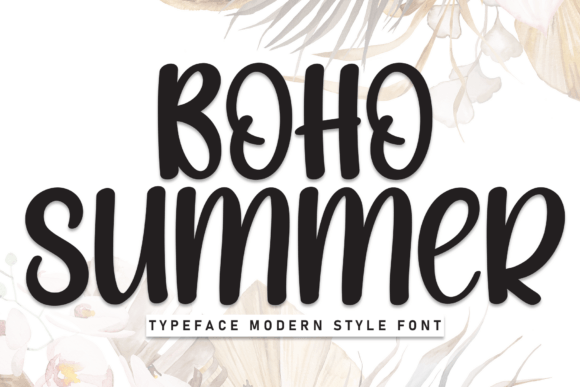
Embracing the Carefree Spirit: A Deep Dive into Boho Summer Font
Ah, the elusive perfect font. You know, that one that makes your design project go from meh to mesmerizing. I recall working on a summer-themed invitation for a friend’s beach wedding, determined to capture the laid-back, artistic vibe of the event. The challenge? Finding a font that screamed “bohemian chic” without being too over-the-top. That’s when I stumbled upon Boho Summer, a playful, handwritten font that instantly transported me to a sun-kissed beach. In this article, we’ll explore what makes Boho Summer a go-to for designers, crafters, and creative hobbyists alike.
The Boho Summer Font: A Personal Review
Boho Summer is more than just a font; it’s an experience. Its flowing lines and relaxed style evoke feelings of warmth and sunshine, making it perfect for summer projects like invitations, beach signs, or casual posters. But, like any font, it’s not without its quirks. Let’s dive into the good, the great, and the “needs a little work.”
What I Love About Boho Summer
• ✨ Playful yet legible: Boho Summer strikes a perfect balance between being whimsical and easy to read.
• ✅ Versatile: Whether you’re designing for print or digital, Boho Summer adapts beautifully.
• 💫 Unique character: It adds a touch of personality to any project, making it stand out.
While Boho Summer is a stunning font, there are a few things to keep in mind:
• 🤔 Overuse: Like any font, using Boho Summer excessively can make your design look cluttered. Balance is key.
• ⚠️ Not ideal for body text: While it’s legible, Boho Summer shines brightest in headlines and short phrases. For longer texts, a more traditional font might be more suitable.
One of the joys of Boho Summer is its support for OpenType features. This means you get access to stylistic alternates, glyphs, and more, allowing for even greater customization. For example, you can use ligatures to create a more fluid, connected look or switch to alternate characters for a fresh spin on your text.
The Story Behind Boho Summer
Boho Summer was inspired by the carefree spirit of summer. Its designer sought to capture the essence of sun-drenched days and balmy nights in a font that’s both playful and elegant. The result is a font that feels like a breath of fresh air, perfect for projects that need a touch of whimsy.
Font Name Boho Summer Font
Author Creativewhitee
Is Boho Summer suitable for body text? While it’s legible, Boho Summer is best used for headlines and short phrases. For longer texts, consider a more traditional font.
Does Boho Summer support OpenType features? Yes, Boho Summer supports OpenType features, including ligatures and stylistic alternates, allowing for greater customization.
Is Boho Summer available in different weights or styles? Boho Summer’s core style is a single weight. Experiment with adjusting size, color, and OpenType features to achieve variations.
Boho Summer is more than just a font; it’s a design companion that brings a touch of bohemian charm to any project. With its playful yet legible design, it’s perfect for capturing the essence of summer in your designs. Whether you’re a seasoned designer or a creative hobbyist, Boho Summer is sure to become a favorite in your font arsenal.